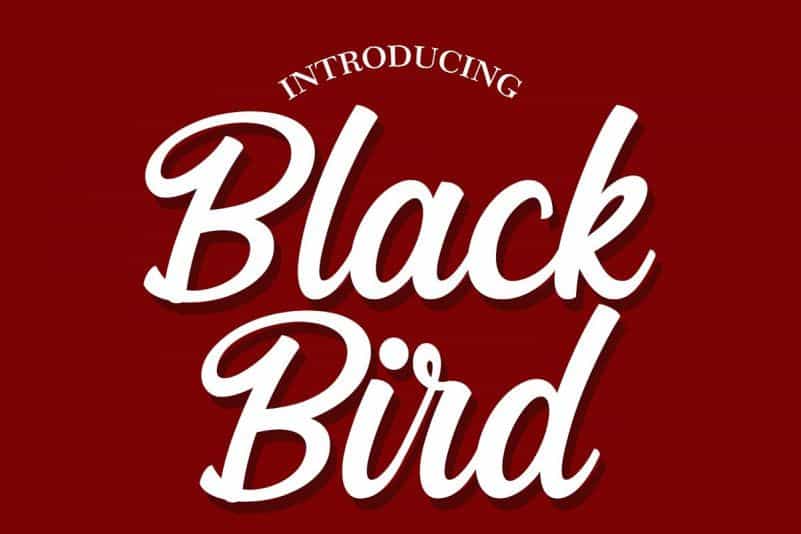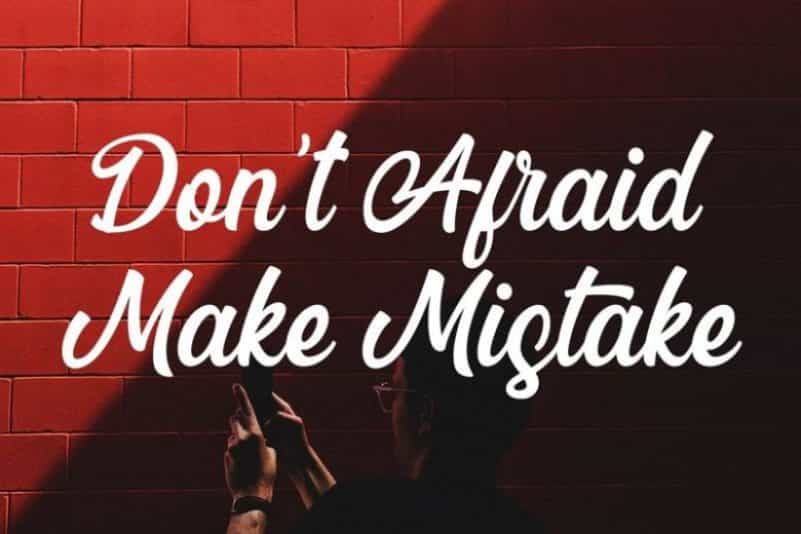
The Black Bird Font is a hand-lettered bold and smooth script. This font is perfect for your creative project like Logotype, Branding, Packaging, Merchandise and many more.